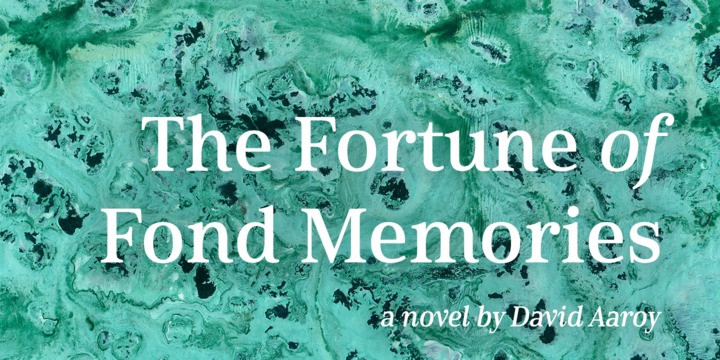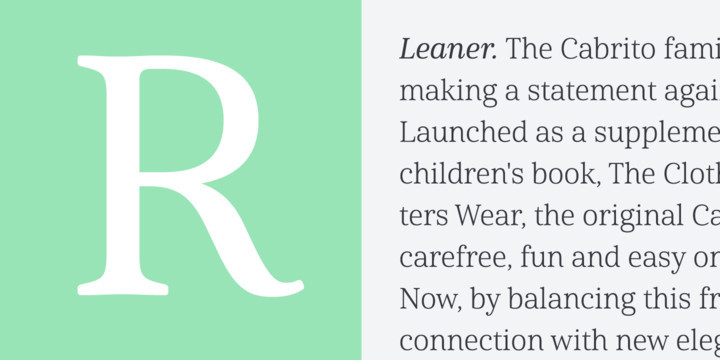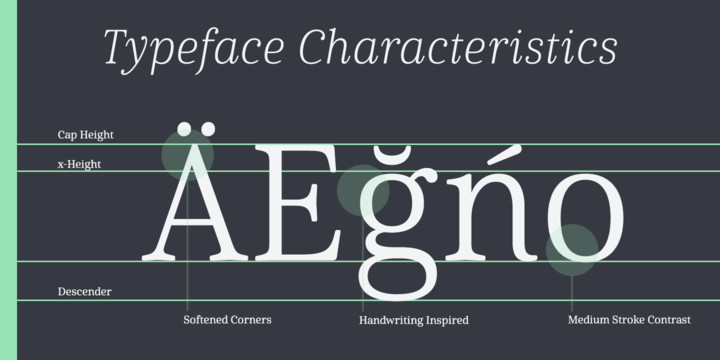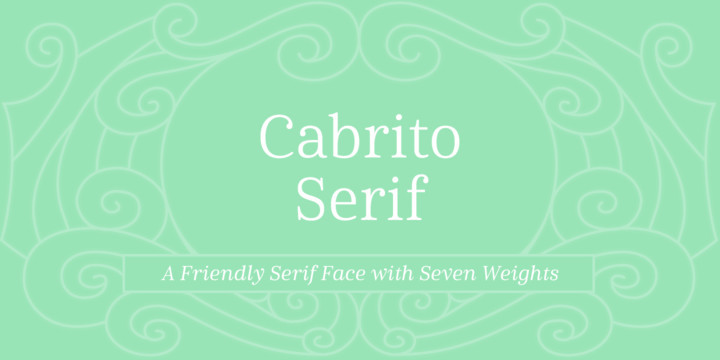
Cabrito Font
The Cabrito family is making a statement again. Launched as a supplement to the children’s book, The Clothes Letters Wear, the original Cabrito is carefree, fun and easy on the eyes. Now, by balancing this friendly connection with new elegance, Cabrito Serif arrives: attractive copy text with an extra sophisticated sensibility incorporated into the design. Still bright and playful, this new Cabrito is cleaner and leaner, ensuring that its polished appearance retains legibility.